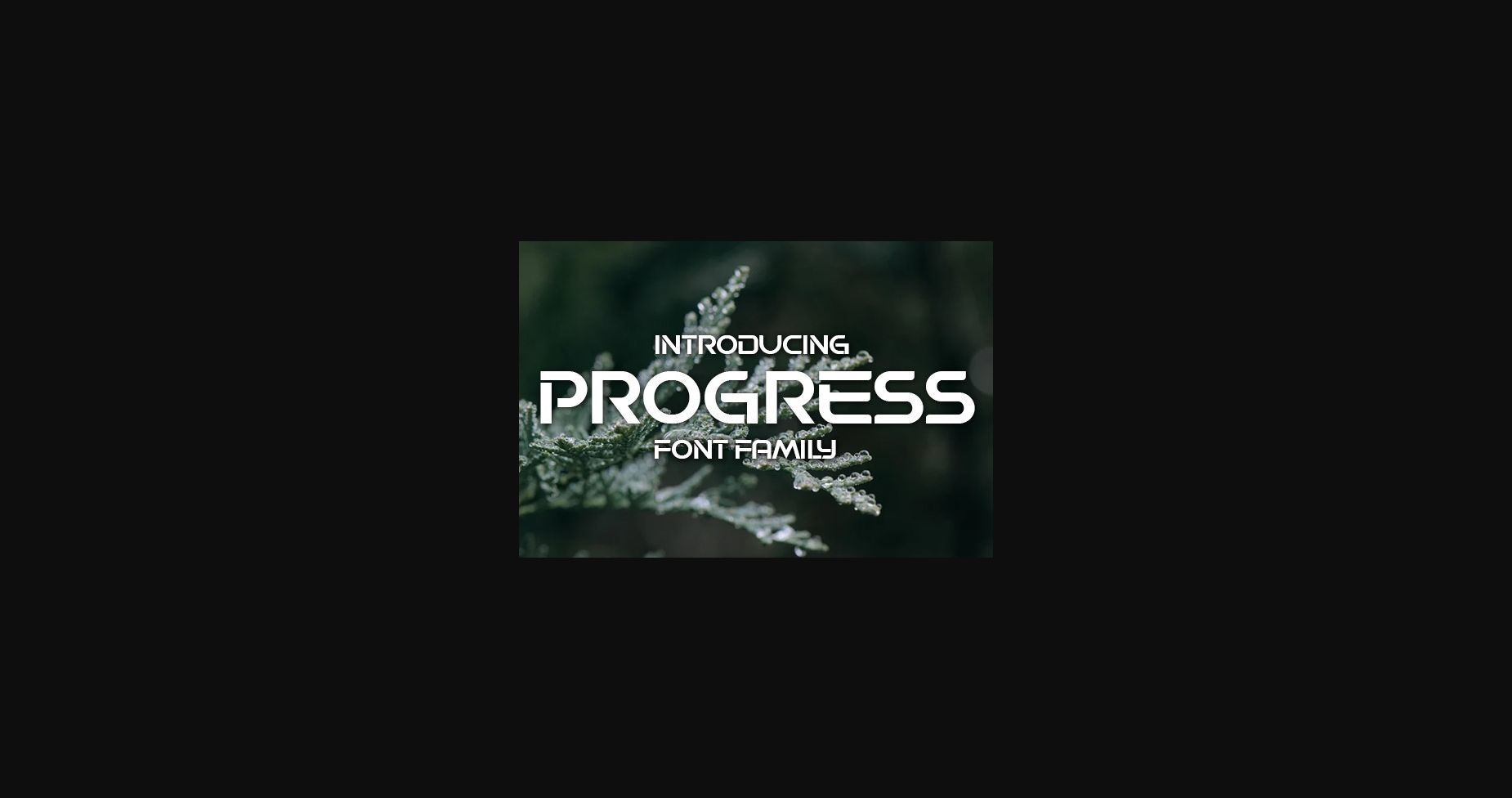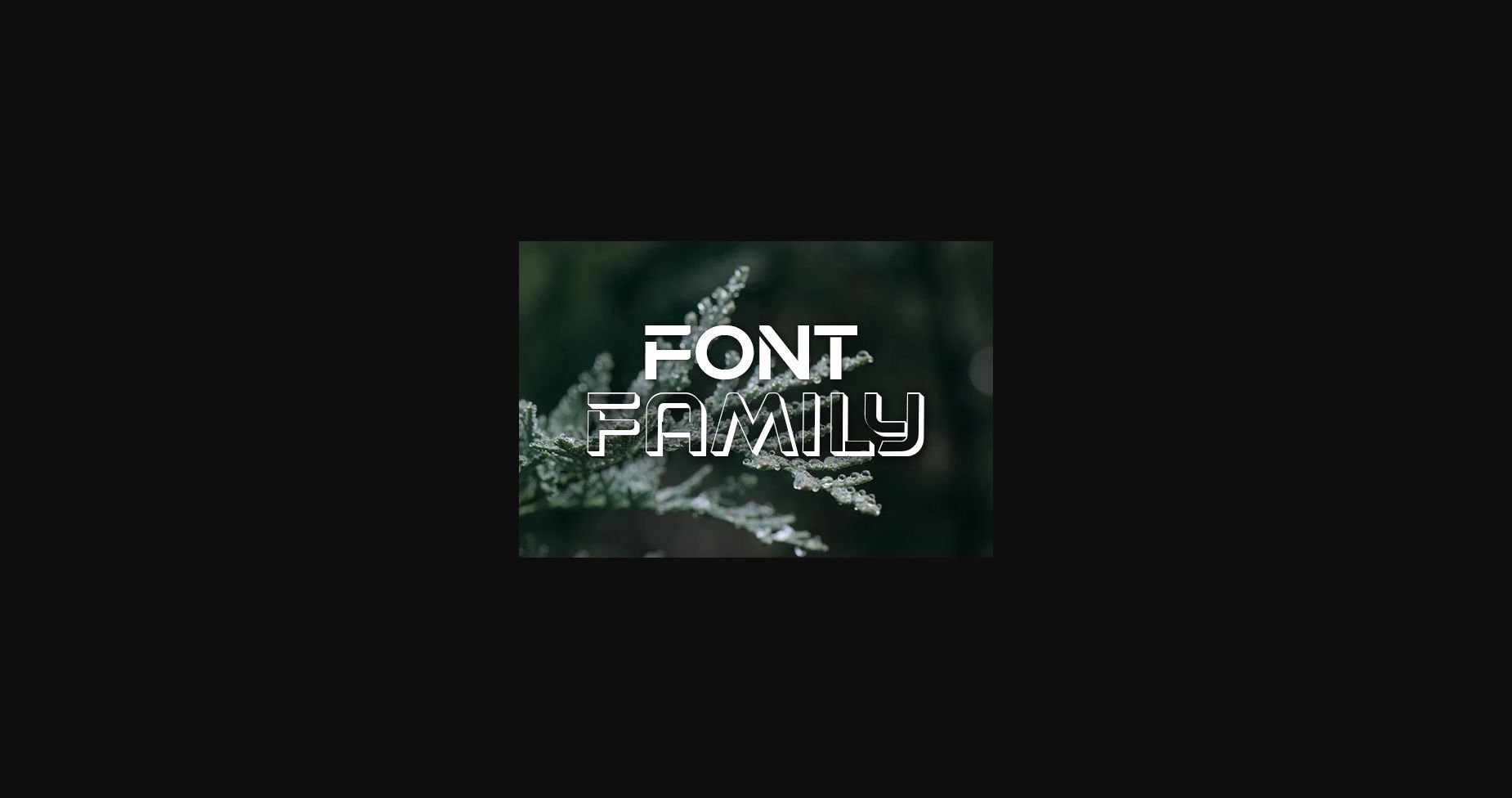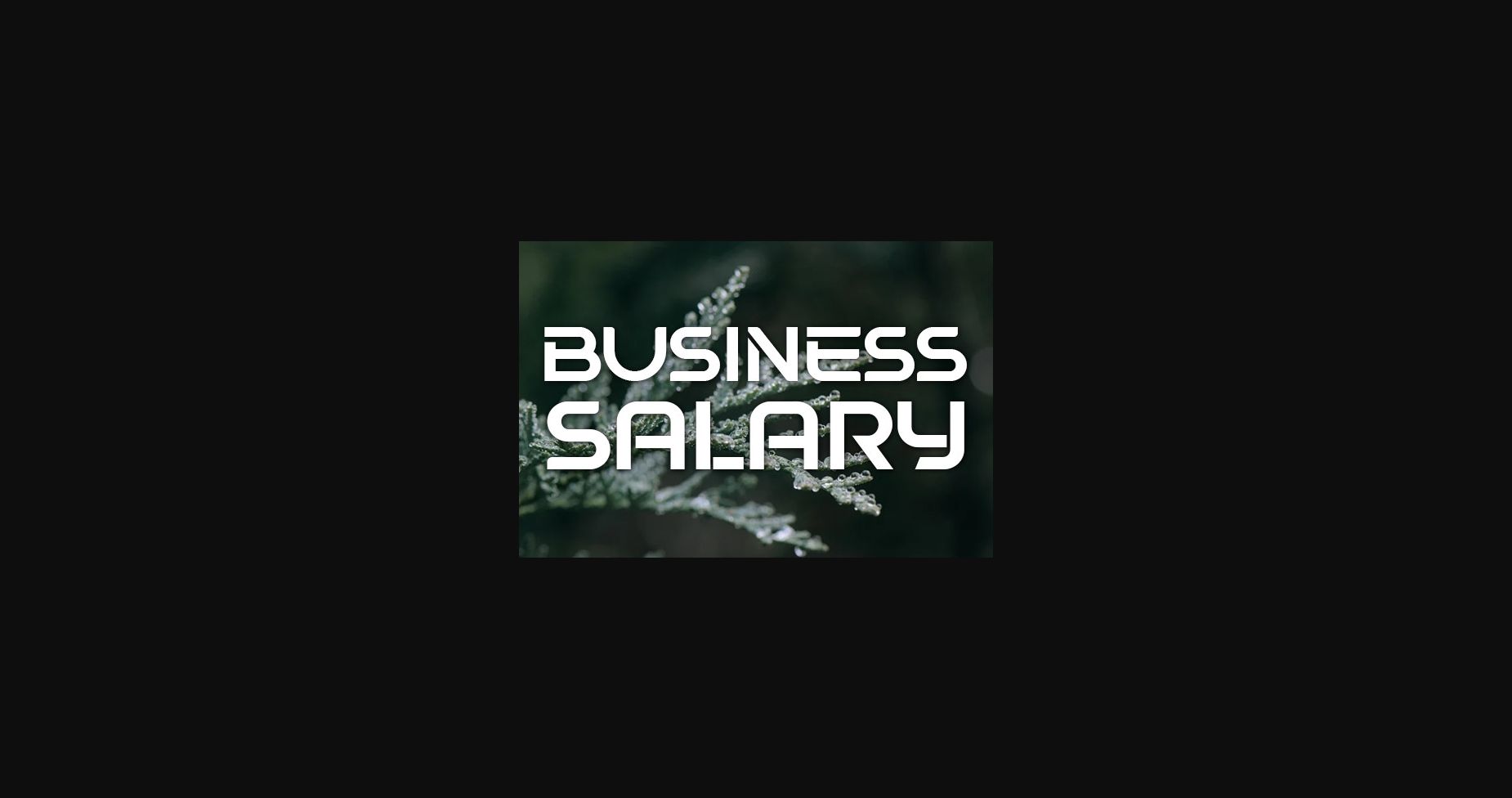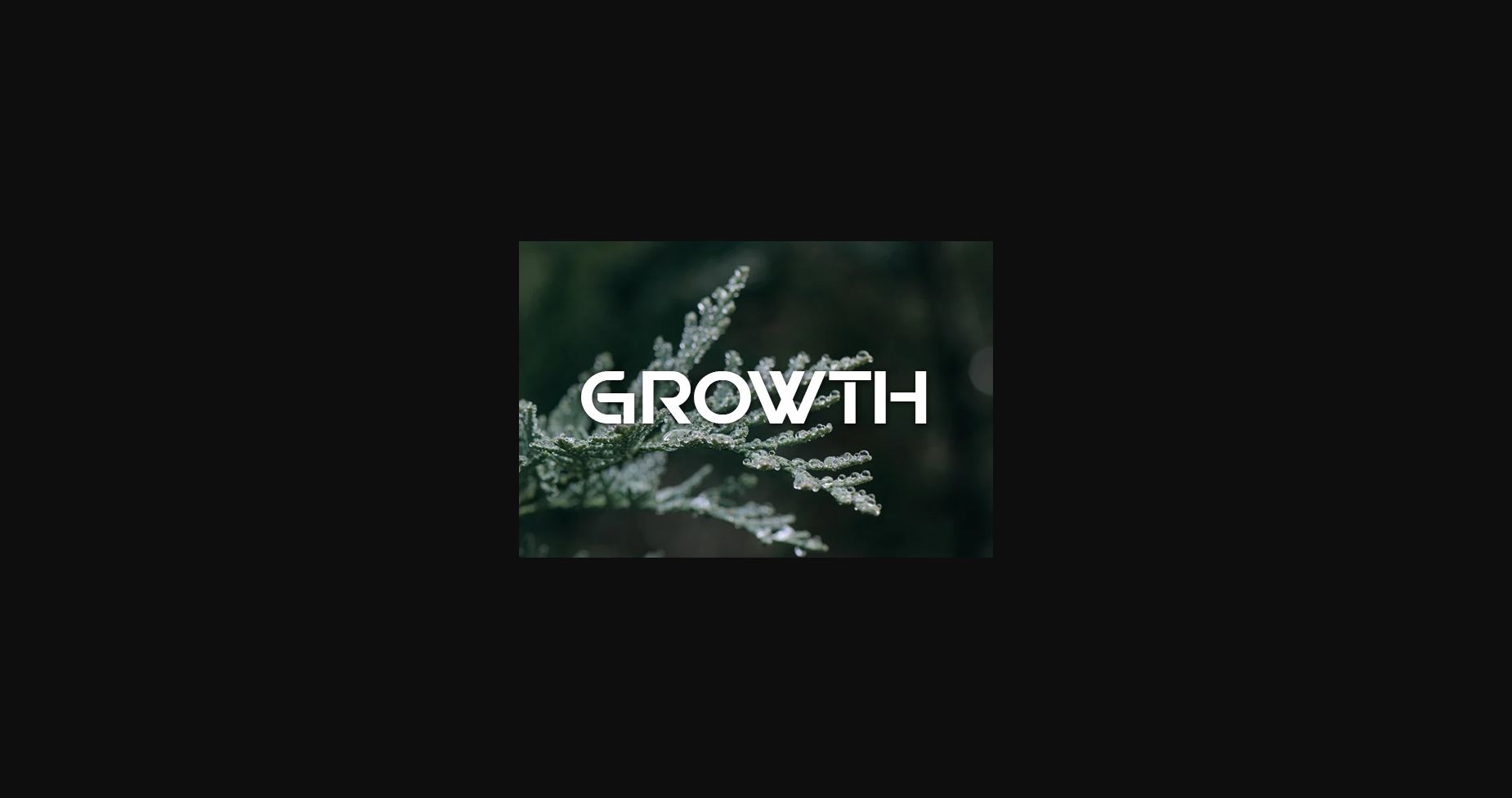
About Progress Font
Progress is an awesome sans serif font family. This techno typeface will fit on any modern poster or flyer.
It comes in various styles that will give you endless modification options.